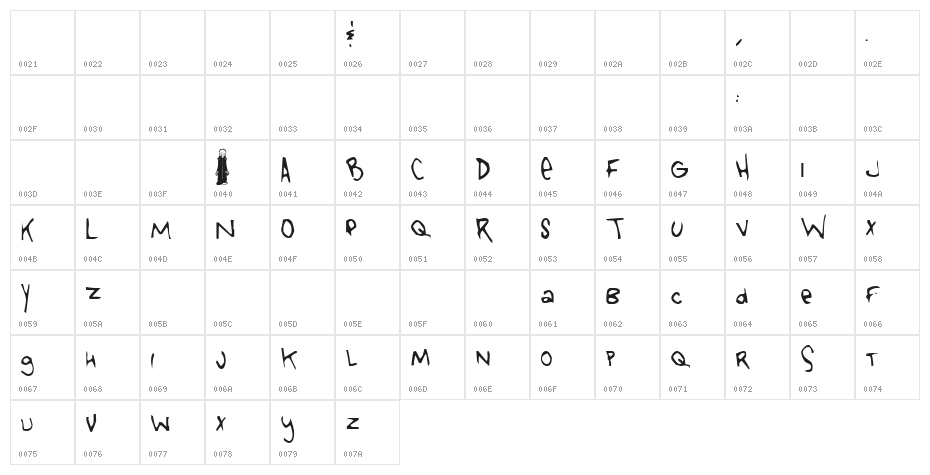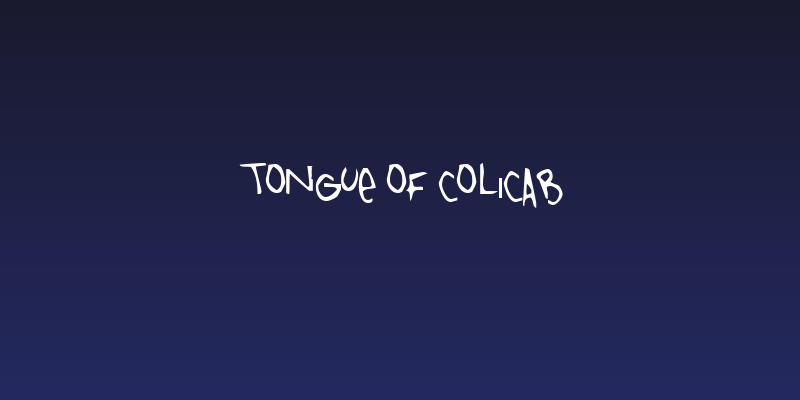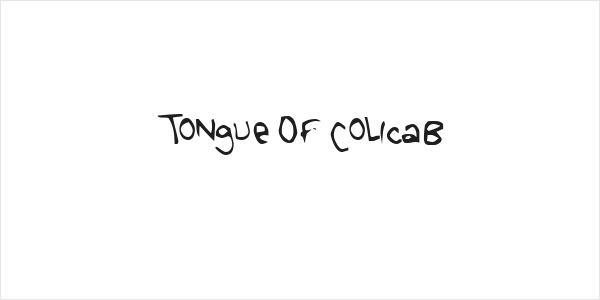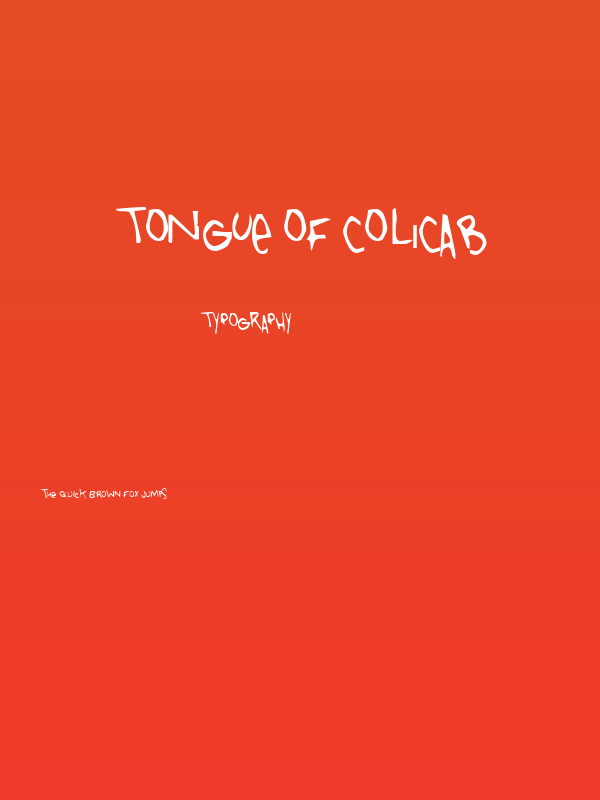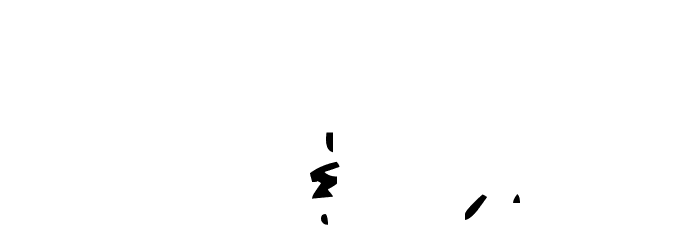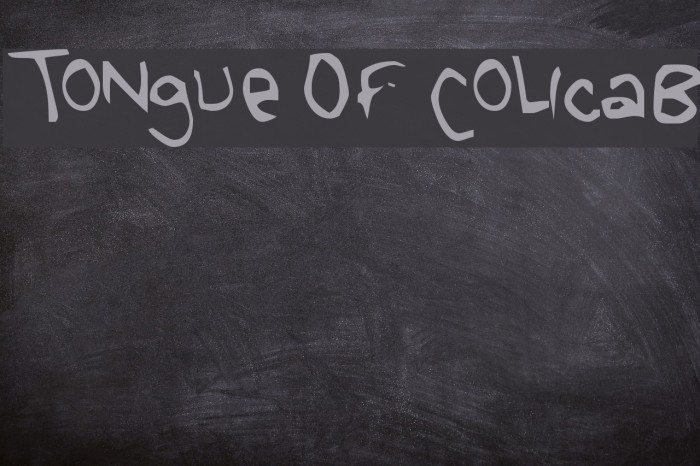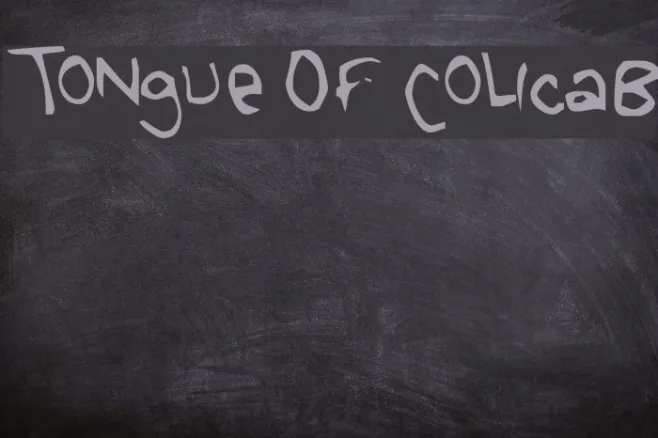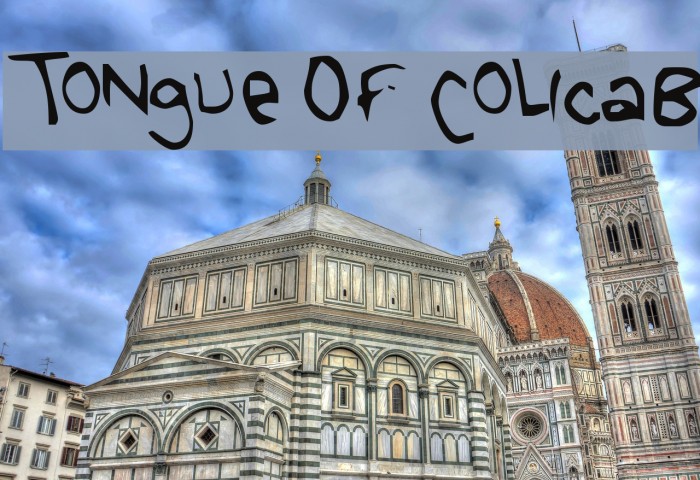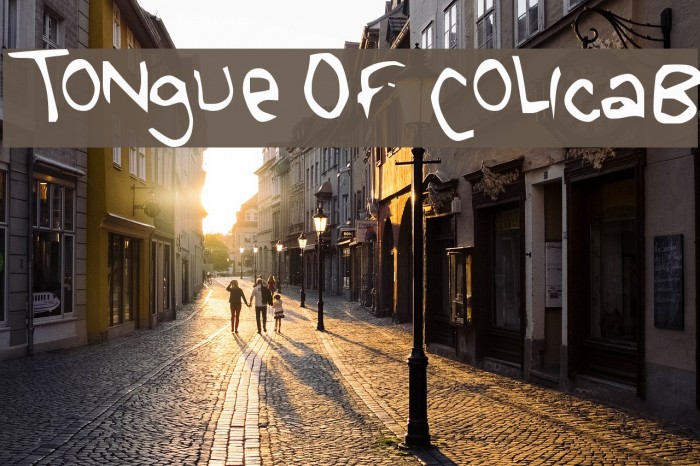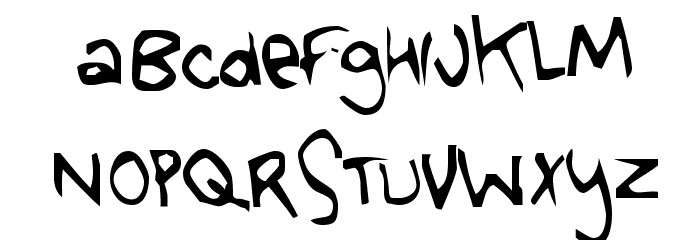
Tongue Of Colicab Font
Tongue Of Colicab Description
This font features a playful and whimsical design, characterized by its irregular and dynamic letterforms. The strokes are bold and uneven, giving it a hand-drawn appearance. The uppercase and lowercase letters maintain a consistent style, with exaggerated curves and angles that create a sense of movement. The font's unique personality is further enhanced by its quirky special characters, which add to its charm. Overall, this font exudes a lively and energetic vibe, making it suitable for creative and informal projects.
| Overall Style | Playful, Whimsical |
| Proposed Projects | Ideal for children's books, comic strips, playful branding, and creative posters. |